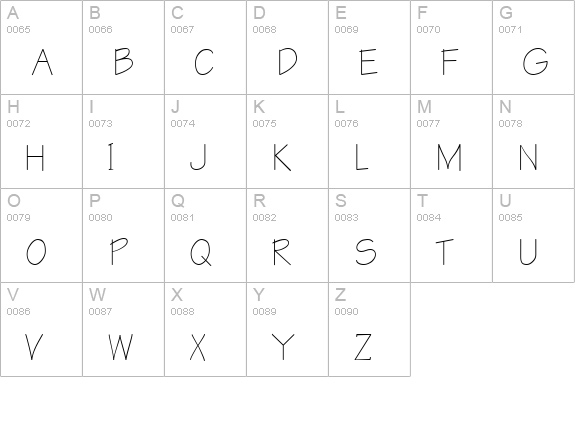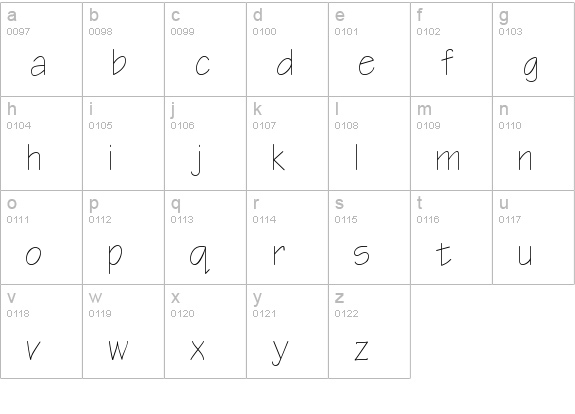
Rapunzel Font Details
Introducing the enchanting Rapunzel font, a whimsical and elegant typeface perfect for adding a touch of fairy-tale magic to your designs. With its graceful curves and flowing lines, Rapunzel font captures the essence of a classic storybook princess. This free font is sure to make your projects stand out with its unique charm and timeless appeal. Rapunzel font is freely available to download at FontsMarket.com, where you can easily access this delightful typeface to elevate your creative projects. Whether you're designing invitations, branding materials, or simply adding a touch of fantasy to your creations, Rapunzel font is the perfect choice for bringing a touch of storybook magic to your work. Download now and let your imagination soar with Rapunzel font!